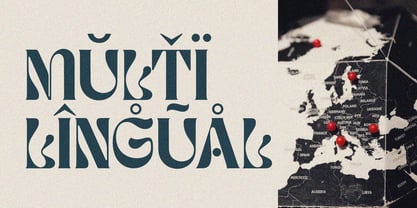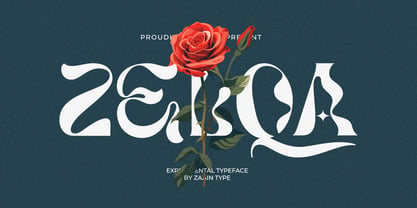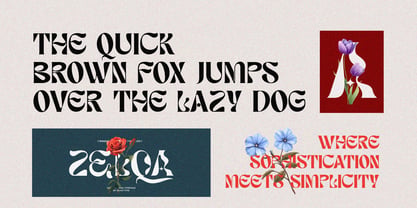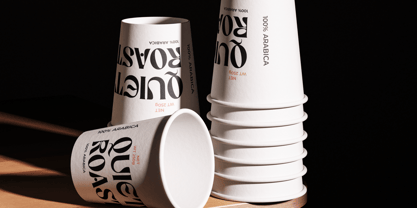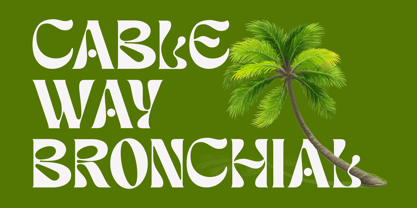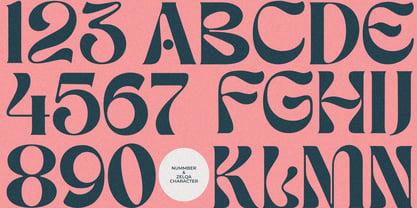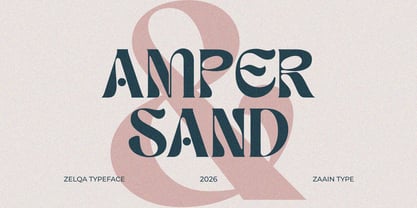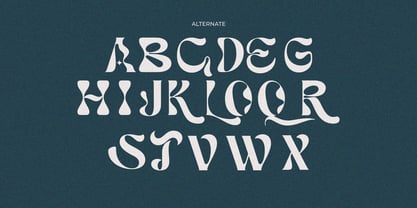
Zelqa
by Zaain Type
The Zelqa Font Family was designed by Ju Naen and published by Zaain Type. Zelqa contains 1 styles.
Zelqa is an experimental typeface that pushes the boundaries of conventional design. With its unconventional shapes, dynamic contrasts, and unexpected letterforms, Zelqa delivers a bold visual statement that stands out in modern creative projects. Perfect for branding, editorial layouts, posters, and artistic compositions, this font embraces freedom and innovation, allowing designers to explore new visual expressions. Zelqa is not just a typeface—it’s a creative voice for those who dare to be different
Zelqa